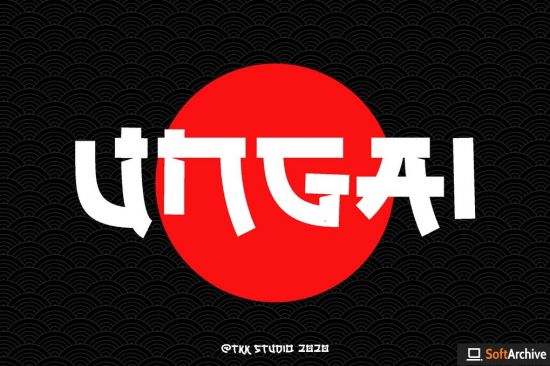
DesignOptimal - UNGAI - faux japanese font
DesignOptimal.com - UNGAI - faux japanese font
Ungai took katakana shape, and take it to the modern fast world. With cut out on the inner connection, emphasize the fast and full action world we're facing.